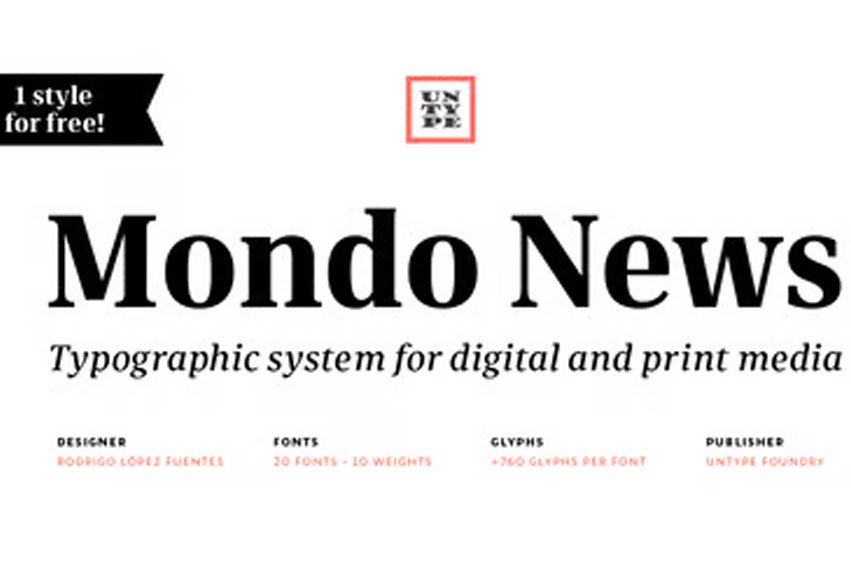
Mondo News Font
Mondo News Font is a typeface designed to fulfill digital and paper publication editorial needs, its cared equilibrium between slightly condensed proportions and generous «x» height, offers optimum performance without compromising legibility.
The modulation of thick and thin strokes in the middle weights is balanced for extensive text reading, while on the heavy weights becomes more dramatic making them ideal for strong headlines.
Equipped with 760+ glyphs, support for more than 200 languages, smallcaps, alternates, ligatures, dingbats and plenty of OpenType features, Mondo News modern interpretation of tradition performs excellent both on screen and on paper, satisfy the most demanding editorial needs and will nourish your pages with a convincing and reliable atmosphere.